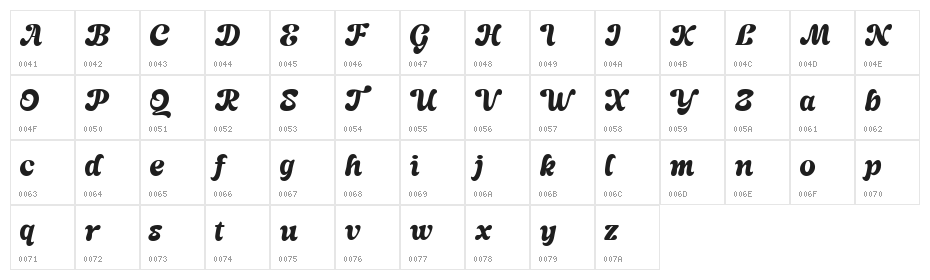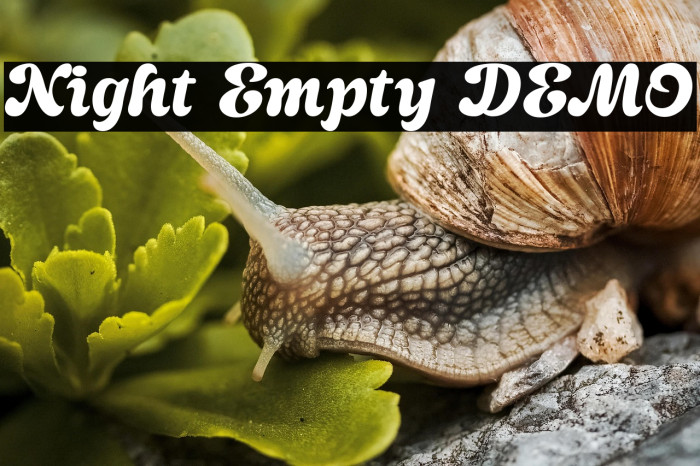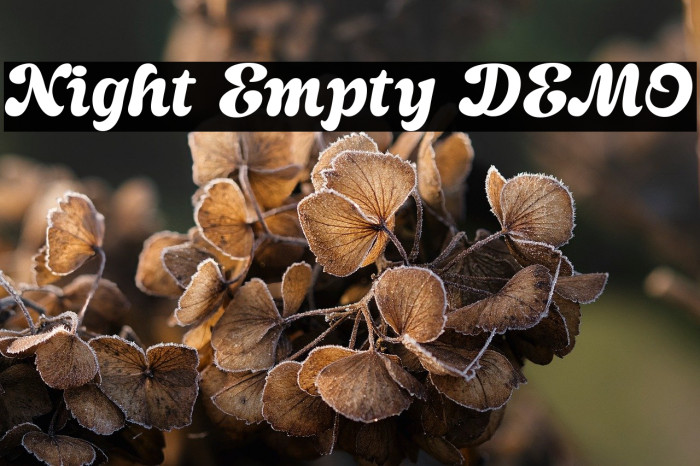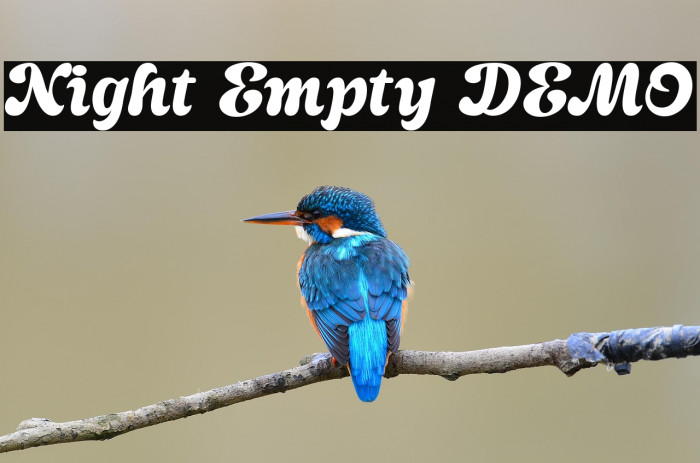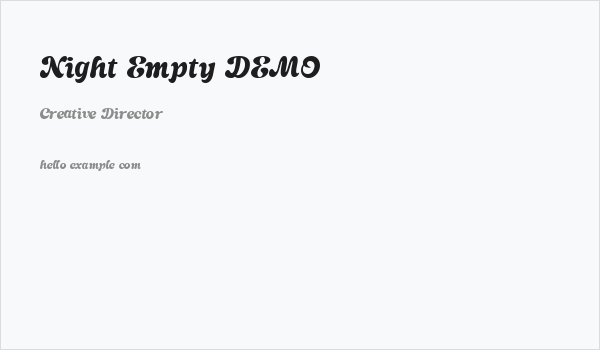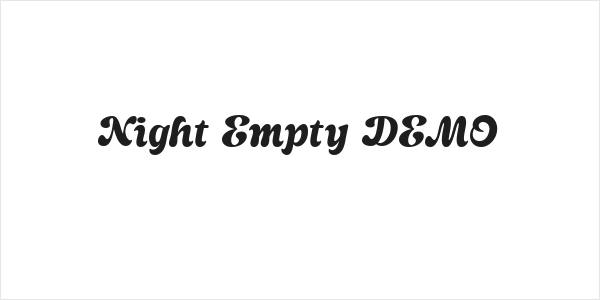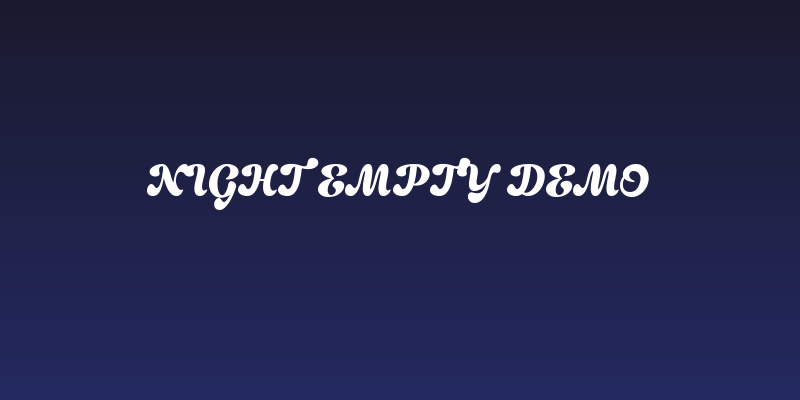
Night Empty DEMO Font
Night Empty DEMO Description
This font features a bold, flowing script style that combines elegance with a touch of playfulness. The characters are designed with smooth, rounded edges and a consistent stroke width, giving it a cohesive and harmonious appearance. The uppercase letters are slightly more elaborate, with subtle flourishes that add a decorative element, while the lowercase letters maintain a simpler, more straightforward design. The numbers and special characters are crafted to match the overall aesthetic, ensuring a uniform look across all text. This font is ideal for projects that require a touch of sophistication and creativity.